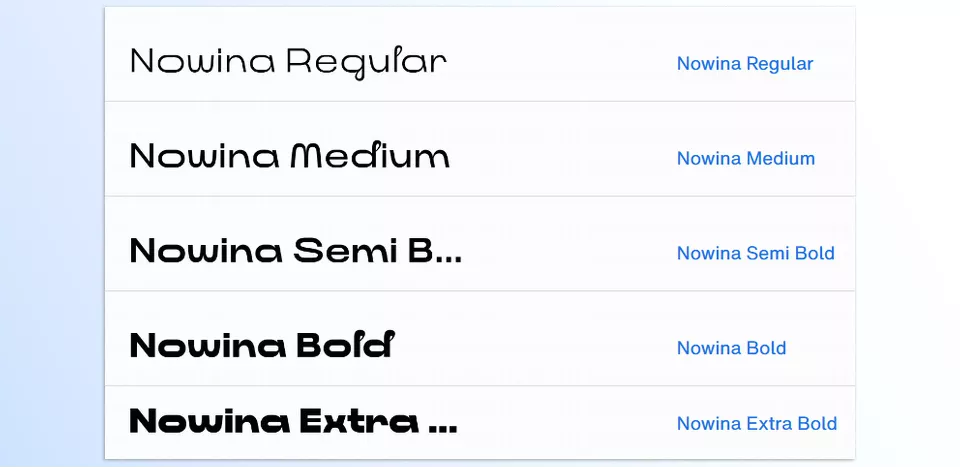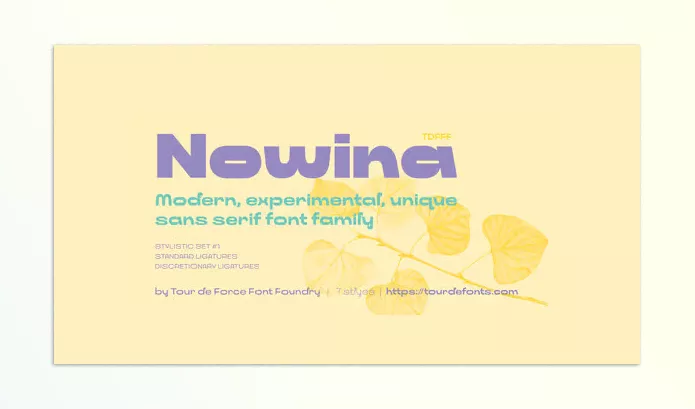
Myfonts – Nowina Font Family is a brand new typeface, a mix between display and sans serif. Its character derives from a unique blend of modern calligraphy and classical geometric forms. The aesthetic, along with unequally sized letter formations, creates an eye-catching rhythm that captures the viewer’s attention.
Tour De Force – Nowina Font Family Features
- Weights: Nowina can be used in seven different styles ranging from Light to Black, giving you the comfort of flexibility in your design.
- OpenType Ligatures: All standard and discretionary ligatures are included to help improve readability and fluency within the text.
- Stylistic Set: Different designs may be crafted using the additional customization allowed by the unique Stylistic Set.
- Geometric and Calligraphic Influence: Nowina can be used for almost every type of design due to its blended nature of geometric and calligraphic design.
- Vintage and Modern Appeal: Modern design projects that aim to include a vintage touch in the design, can use Nowina effortlessly.
- Perfect for Branding: Best suited for branding. Ideal for logos, product naming, posters and other forms of branding materials.
- Rhythmic Letterforms: Creatively styled designs will capture appeal thanks to Nowina’s rhythmic personality-building character spacing.
- Suitable for Quirky Projects: Avant-garde and eccentric projects can and will benefit from Nowina’s unique nature, which is sure to make a statement.
Image 1: A striking blend of classic and modern design elements, this font adds rhythm and style to any project.
Image 2: Perfect for quirky, avant-garde branding, its unique letter shapes bring a touch of vintage and sophistication.